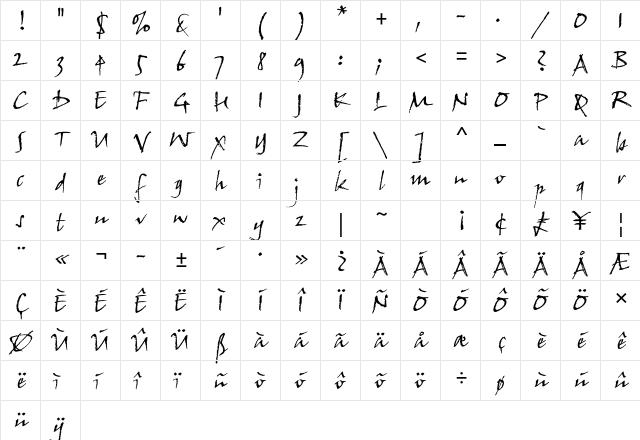
John Handy Std flows with the natural rhythm of handwritten lettering, making it ideal for designs that call for warmth and personal expression.
Font Pairing: Combine John Handy Std with a simple geometric sans for maximum contrast - the tension between flowing curves and clean structure is a classic typographic pairing.
Pro Tip: Use John Handy Std for short runs of text - names, titles, or taglines. Extended body copy in script faces tires the eye quickly.